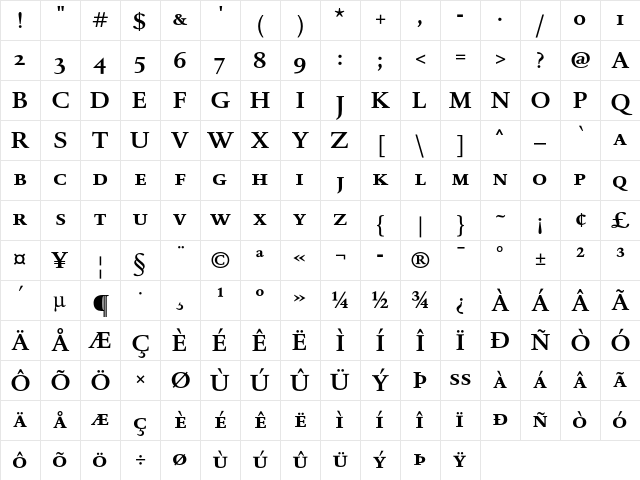
DTL Romulus is a composed and adaptable typeface that performs quietly and consistently across a wide range of design contexts. Its bold stroke weight gives it real presence on the page.